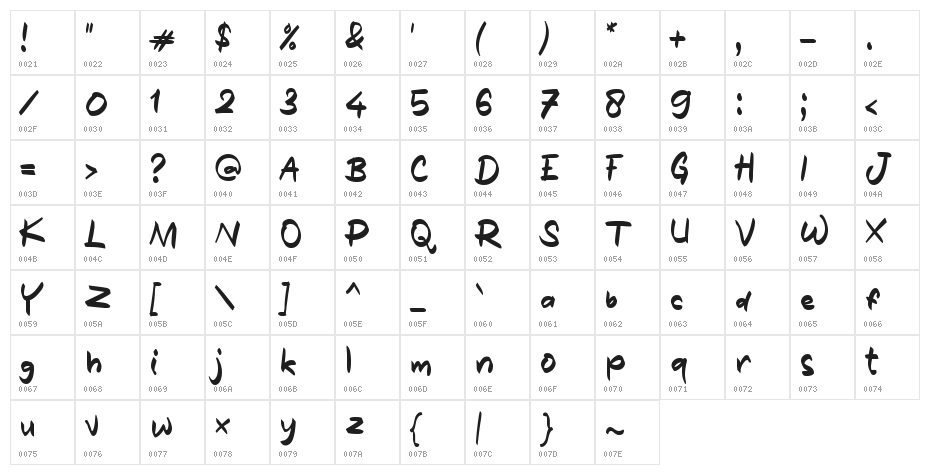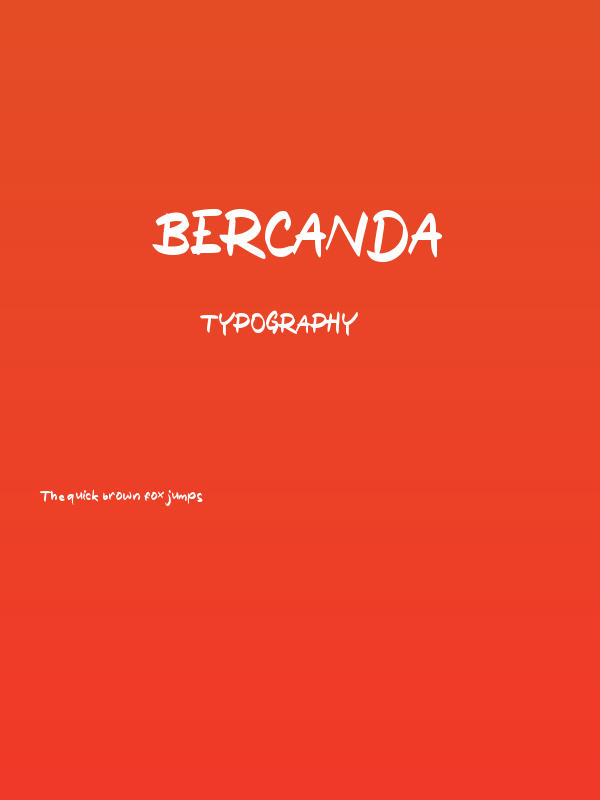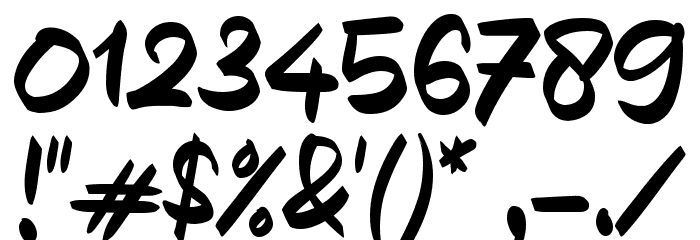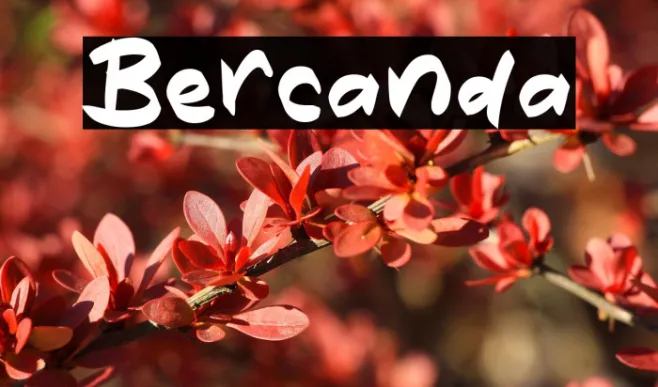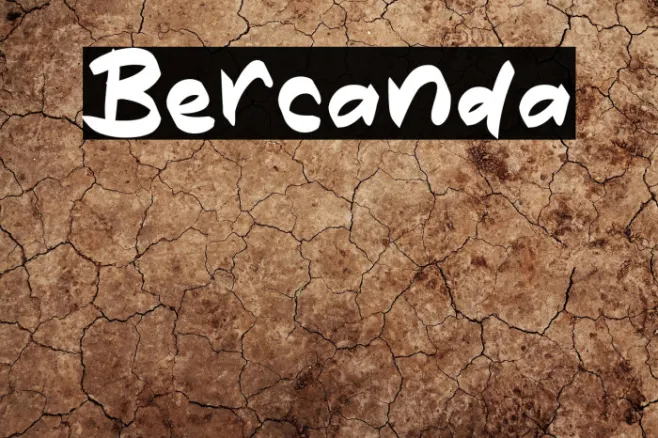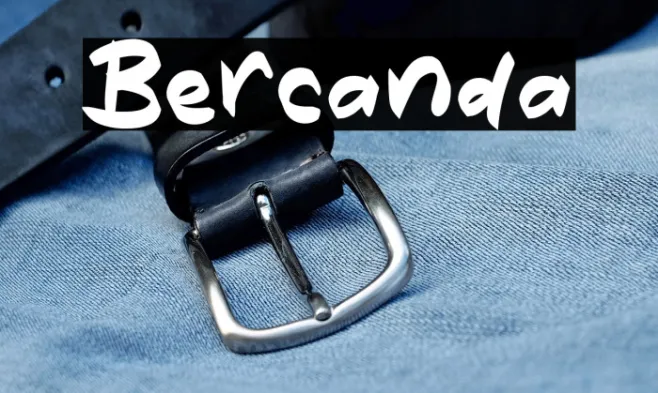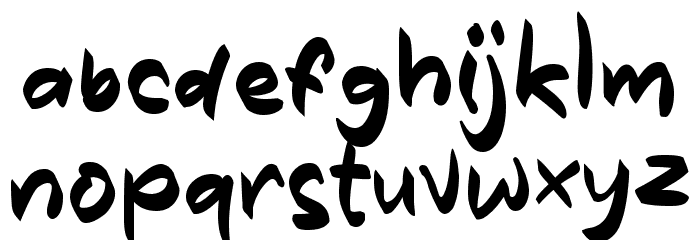
Bercanda Font
Bercanda Description
This font features a playful and energetic handwritten style, characterized by its bold and slightly irregular strokes. The letters have a casual, informal appearance, with a dynamic flow that suggests movement and spontaneity. The uppercase and lowercase letters maintain a consistent style, with rounded edges and a slightly slanted orientation. Numbers and special characters are equally expressive, adding to the font's overall lively personality. This font is well-suited for projects that require a fun and approachable aesthetic, making it ideal for creative and informal applications.
BERCANDA UPPERCASE
BERCANDA LOWERCASE
BERCANDA OTHER CHARS
| Proposed Projects | Ideal for greeting cards, children's books, playful branding, and social media graphics. |